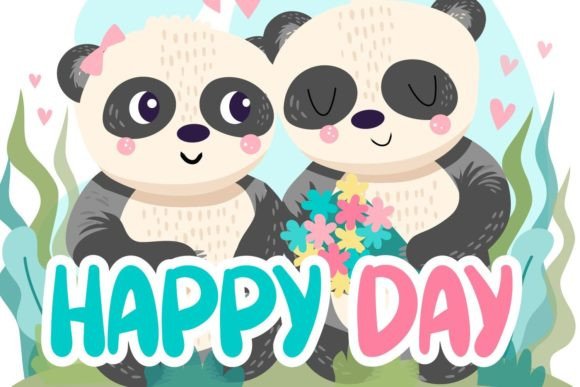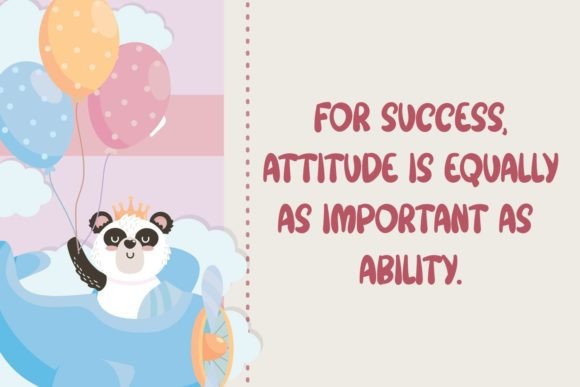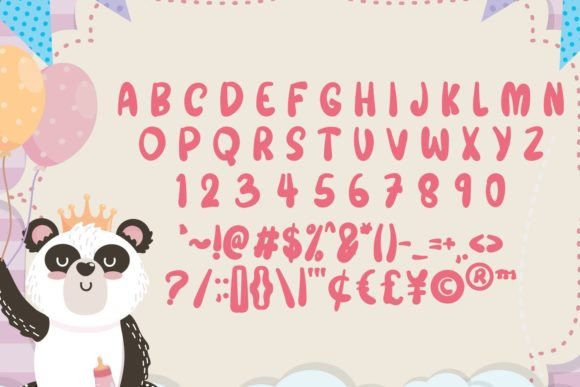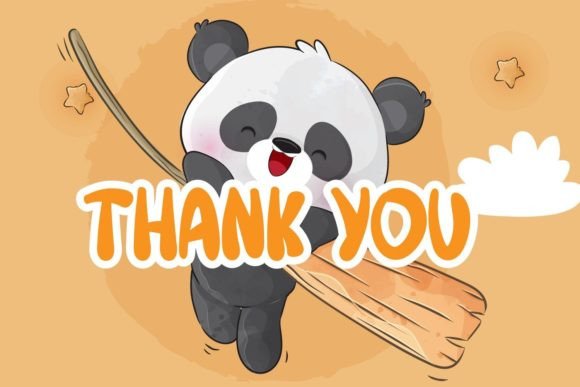
The Groovy Touch: Elevate Your Designs with a Blast from the Past
Have you ever been stuck in a creative rut, desperate for a spark to ignite your next big project? Maybe you’ve been staring at a blank canvas, a blank sheet of paper, or a blank screen, waiting for inspiration to strike. That’s when it hits you – a blast from the past, a nostalgic feeling that brings a smile to your face and a twinkle to your eye.
That’s where the Groovy Panda Font comes in – a masterfully designed display font that’s guaranteed to add a special retro touch to any design idea you can think of. With its playful, nostalgic vibe, this font is a true favorite among designers looking to elevate their creative projects to the next level. Whether you’re working on a vintage-inspired campaign or simply want to add some flair to your social media graphics, the Groovy Panda Font is the perfect addition to your design arsenal.
- Unique Characteristics: Distinctive panda-inspired design elements, adding a playful touch to text and titles.
- Kerning and Ligatures: Includes advanced kerning and ligature settings for improved text readability and aesthetics.
Groovy Panda Font Review
I’ve had the chance to work with the Groovy Panda Font, and here’s my honest review. Overall, I think it’s a fun, playful font that’s perfect for projects that need a bit of whimsy.
- Unique character set**: The Groovy Panda Font has a quirky character set that’s full of personality.
- Great for titles and headings**: The font is perfect for creating eye-catching titles and headings that grab attention.
- Good for digital use**: The font renders well on digital screens, making it a great choice for websites, apps, and social media.
- Limited legibility**: The font can be a bit hard to read at small sizes, which may be a concern for body text.
- Not ideal for long blocks of text**: The font’s playfulness can start to feel overwhelming when used for large amounts of text.
Overall, I think the Groovy Panda Font is a great addition to any designer’s toolkit. While it may not be the best choice for every project, it’s a fun and versatile font that’s sure to add some personality to your designs.
Getting the Most Out of the Groovy Panda Font
Here are some tips to help you get the most out of the Groovy Panda Font:
– Use it for playful, creative projects, such as children’s books or social media graphics.
– Experiment with different font sizes and colors to create a visually appealing design.
– Combine the Groovy Panda Font with other fonts for a unique, eye-catching look.
The Groovy Panda Font is perfect for:
– Children’s book covers and illustrations.
– Social media graphics and ads.
– Playful business branding and marketing materials.
Alternatives to Groovy Panda Font
Great Vibes Font is a fun, cursive script font that is perfect for creating a playful and relaxed atmosphere. It’s ideal for use in branding, packaging, and advertising materials where a friendly and approachable tone is desired.
Great Vibes Font is similar to Groovy Panda Font in its playful and whimsical nature, but it has a more polished and refined feel. It’s a great choice for designers who want to create a sense of nostalgia and warmth in their designs.
Pacifico Font is a beautiful, elegant script font that is inspired by the Pacific coast of California. It’s perfect for use in high-end branding, luxury packaging, and advertising materials where a sophisticated and refined tone is desired.
Pacifico Font is different from Groovy Panda Font in its level of sophistication and elegance. While Groovy Panda Font is playful and whimsical, Pacifico Font is more refined and sophisticated. Pacifico Font is a great choice for designers who want to create a sense of luxury and sophistication in their designs.
Amarante Font
Amarante Font is a beautiful, elegant script font that is perfect for use in branding, packaging, and advertising materials where a romantic and whimsical tone is desired.